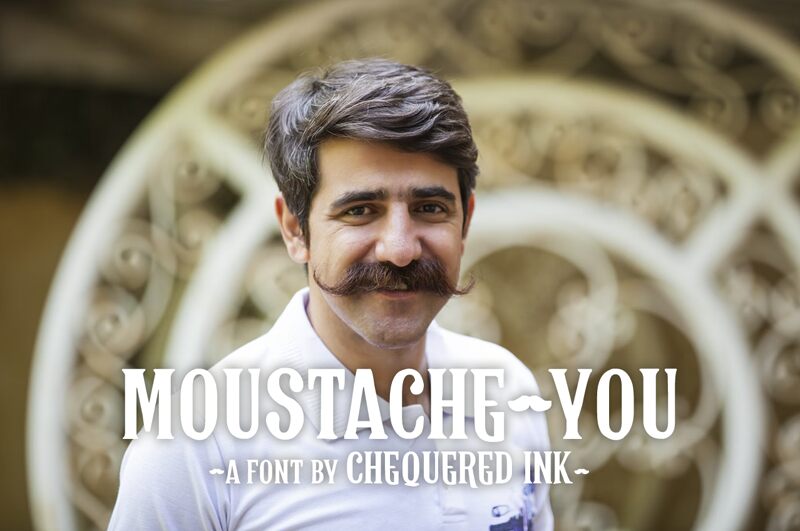
Moustache You
Moustache You font by Chequered Ink is a free retro display font. It stands out with whisker-like flared serifs and tapered stems that curl into the page like a well-groomed handlebar, giving headlines a jaunty, saloon-meets-barbershop swagger. The verticals are sturdy and close-set, building a punchy rhythm that reads loud and clear even at smaller display sizes.
This free font shines on men’s grooming brands, brewery labels, vintage posters, coffee shop signage, retro T‑shirts, and carnival-themed events. Using Moustache You, you get lively contrast without losing legibility, thanks to its disciplined spacing and confident forms. Pair it with a clean grotesque sans (set smaller) or add a touch of tracking to open up its bold cadence.